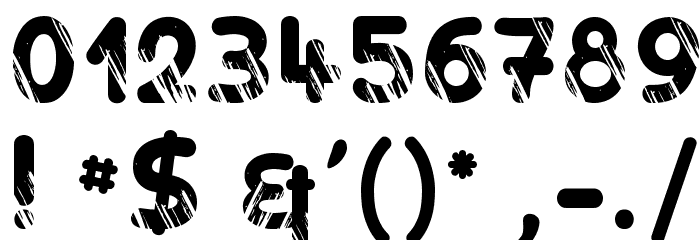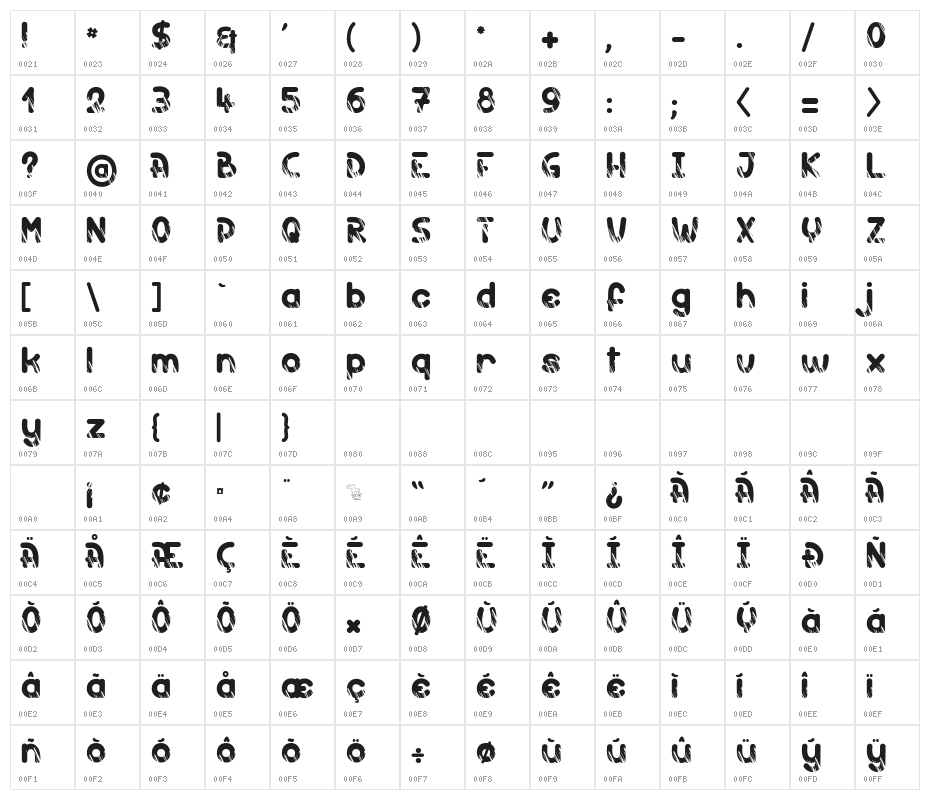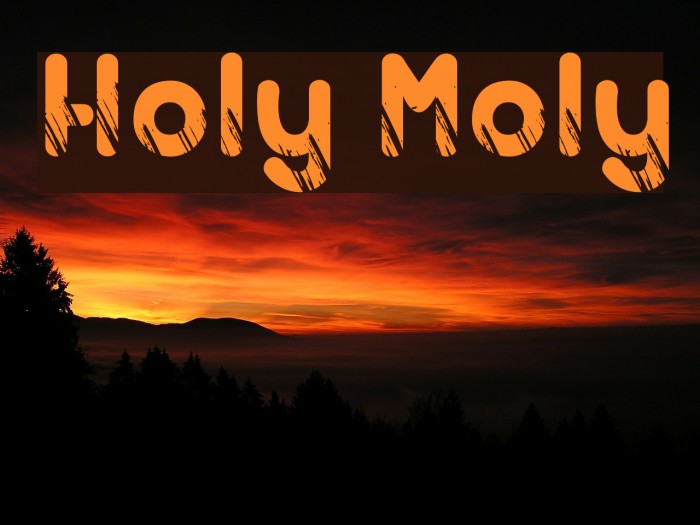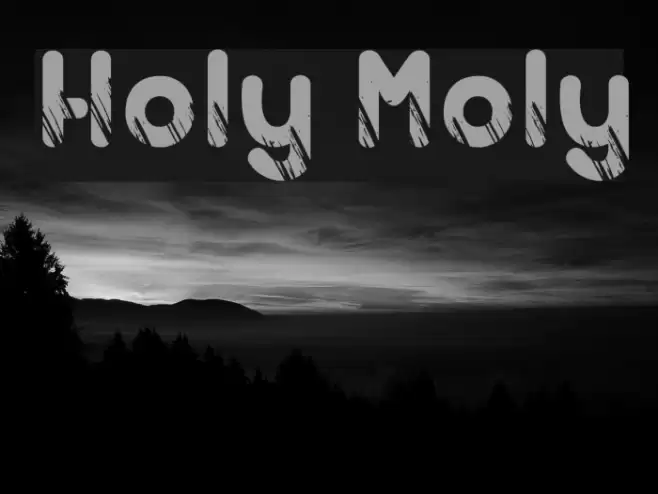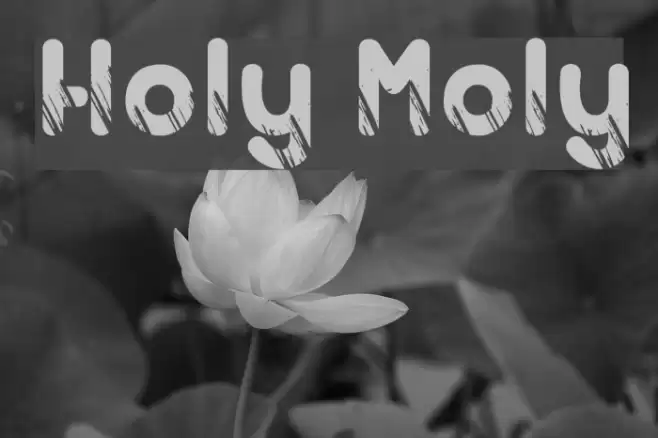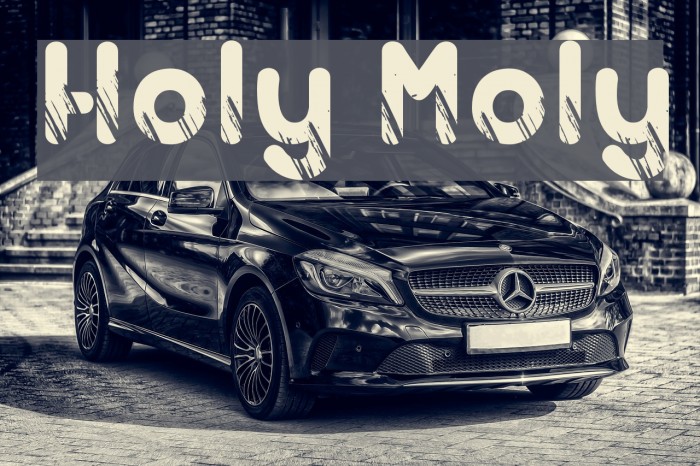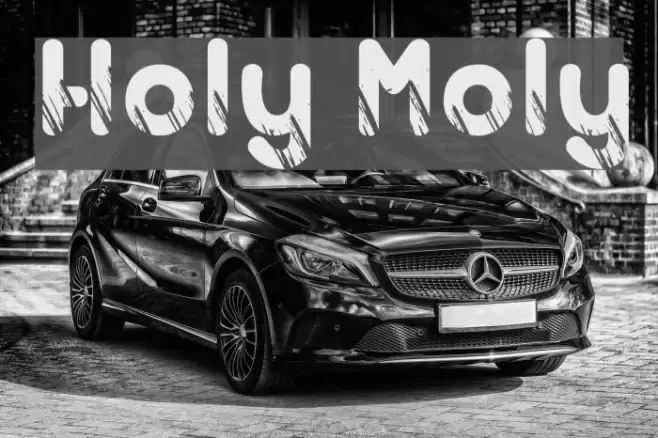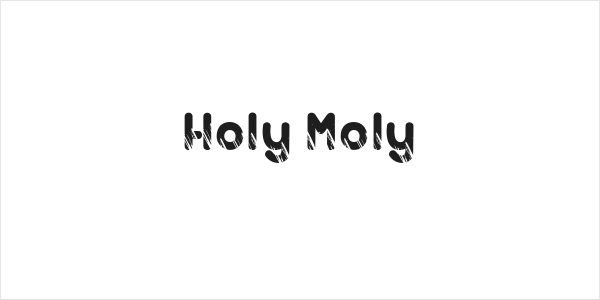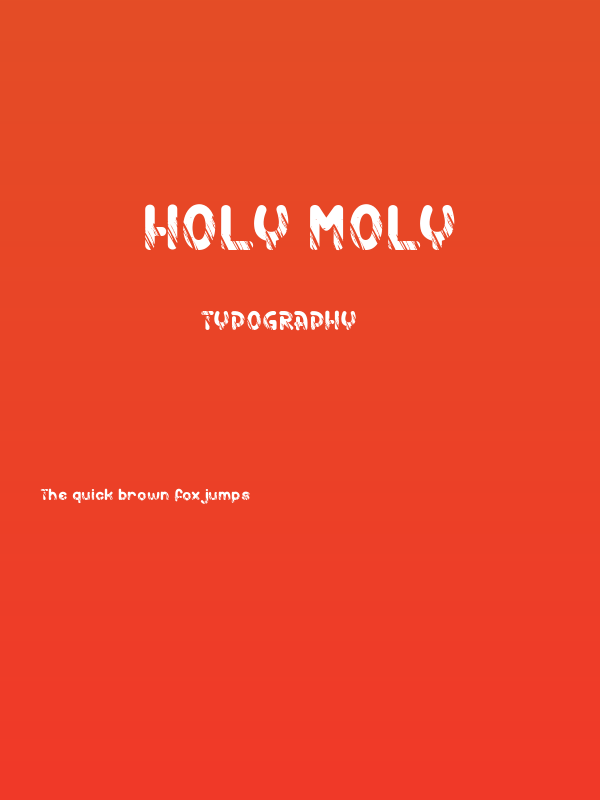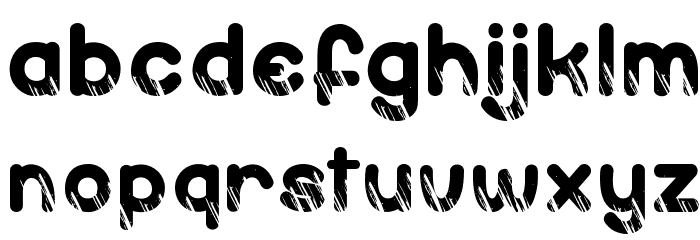
Holy Moly Font
Holy Moly Description
This font features a bold, playful style with a unique textured effect that resembles a brush stroke or scratched surface. The characters are rounded and have a consistent thickness, giving them a solid and substantial appearance. The texture adds a dynamic and energetic feel, making it stand out in any design. The uppercase and lowercase letters maintain a uniform style, while the numbers and special characters are crafted to match the overall aesthetic. This font is ideal for projects that require a bold statement and a touch of creativity.
| Proposed Projects | Perfect for posters, branding, headlines, and creative advertising campaigns. |